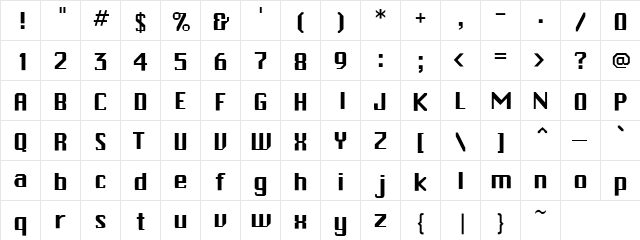
Hickton Regular
Design Context for Hickton Typeface
Hickton is a composed and adaptable typeface that performs quietly and consistently across a wide range of design contexts.